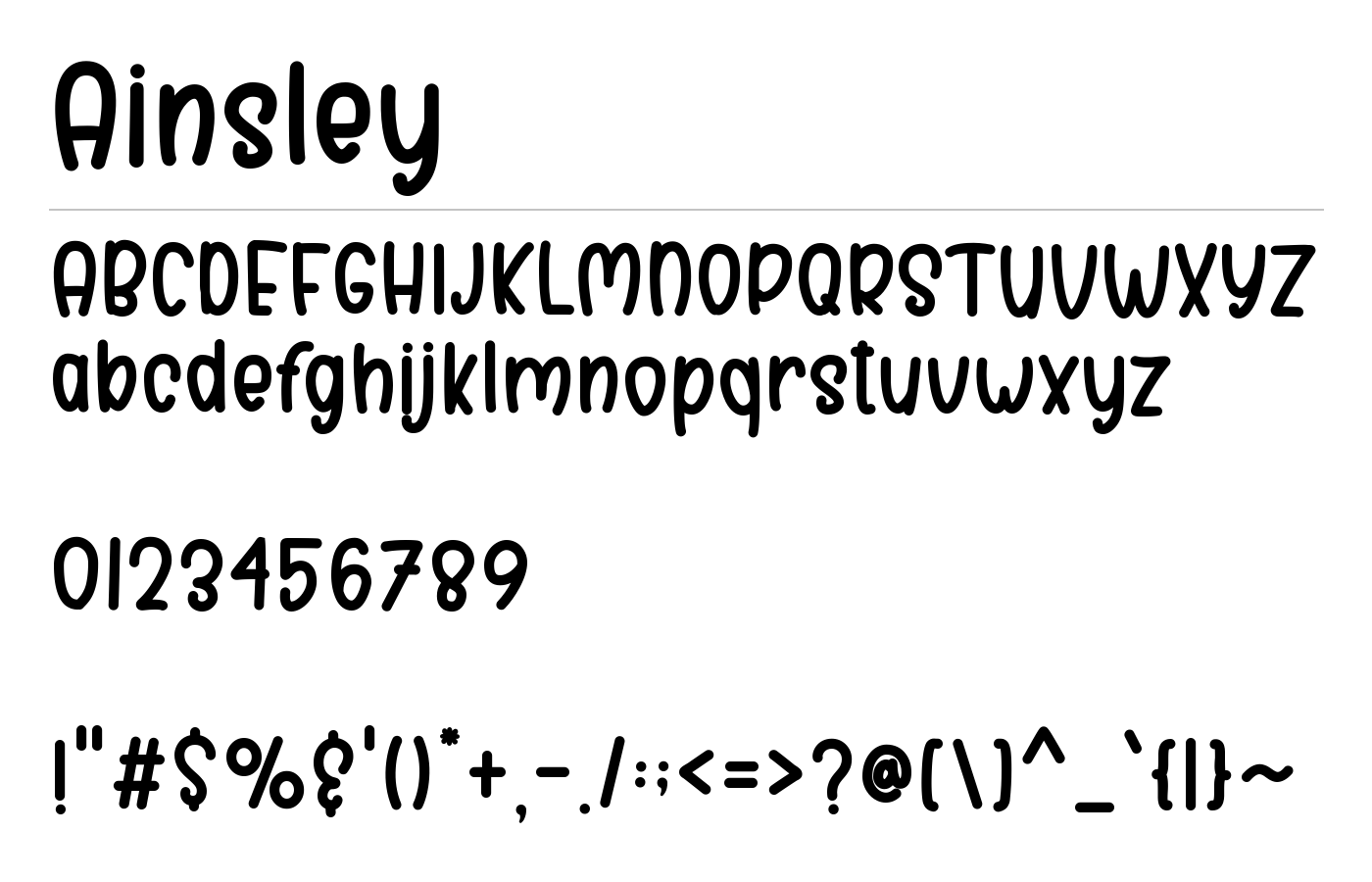
Ainsley is a playful and informal sans serif font with rounded, soft strokes and a friendly, hand-drawn feel. Its slightly condensed letterforms and consistent weight make it approachable and easy to read, perfect for casual branding, children’s materials, and lighthearted graphic design projects. This font works well in headlines or display text where a warm, whimsical personality is desired.
Ainsley Font
About Ainsley Font